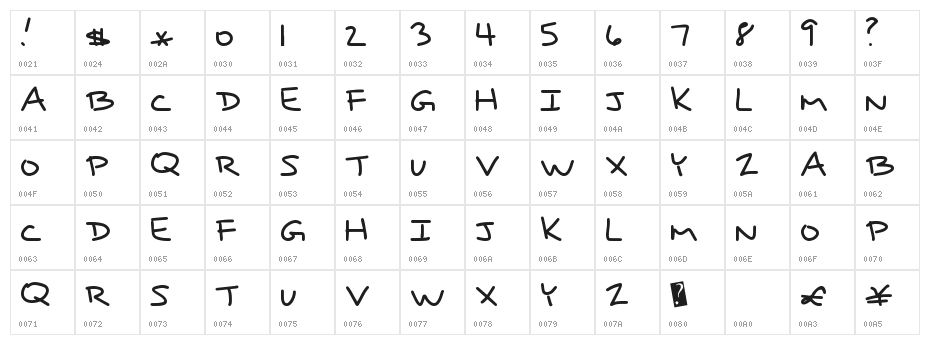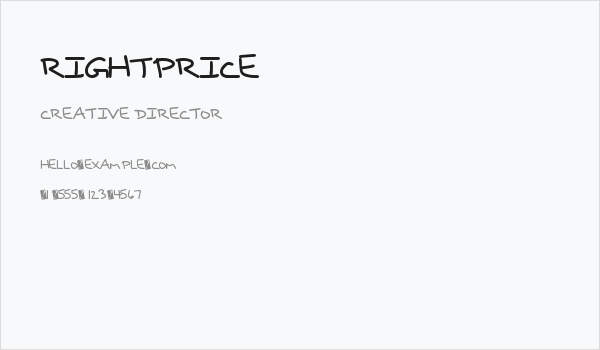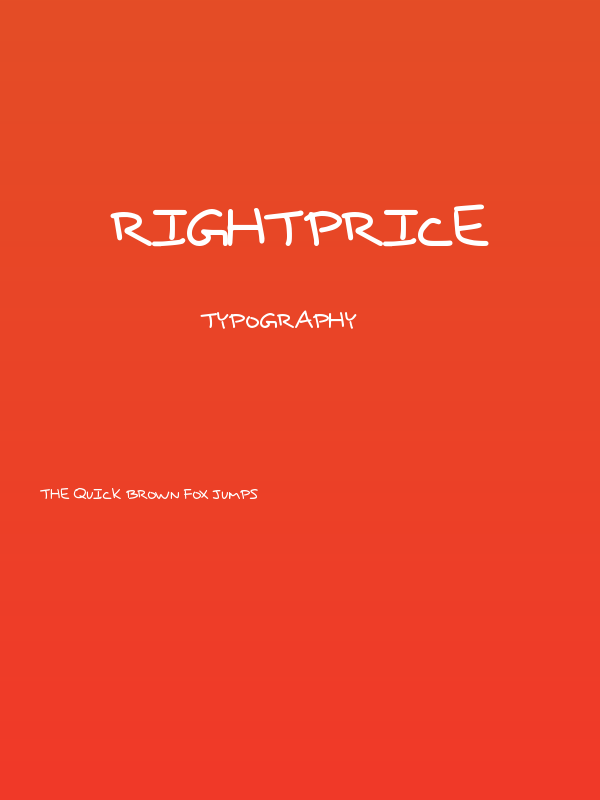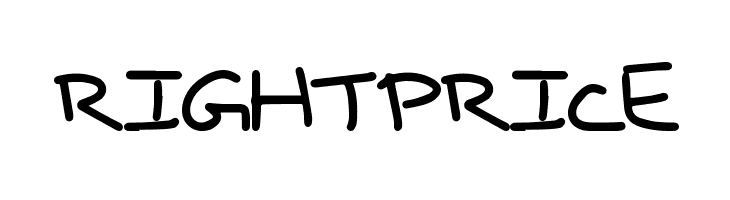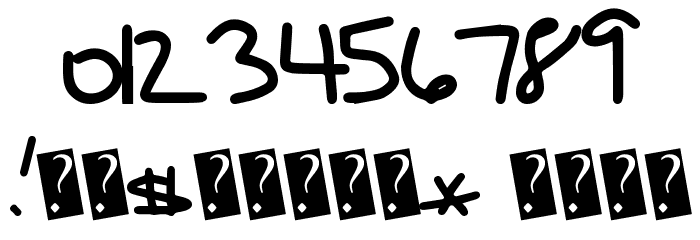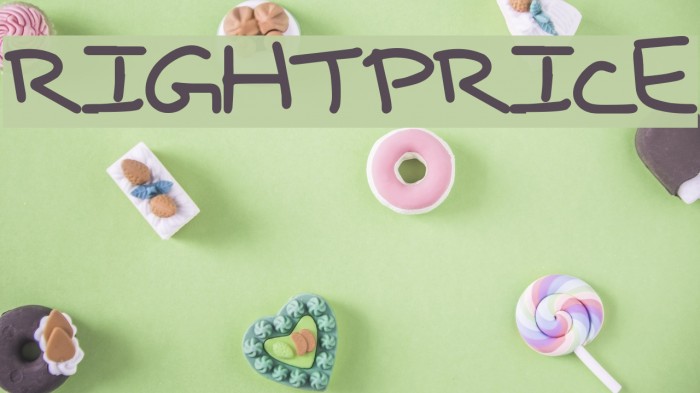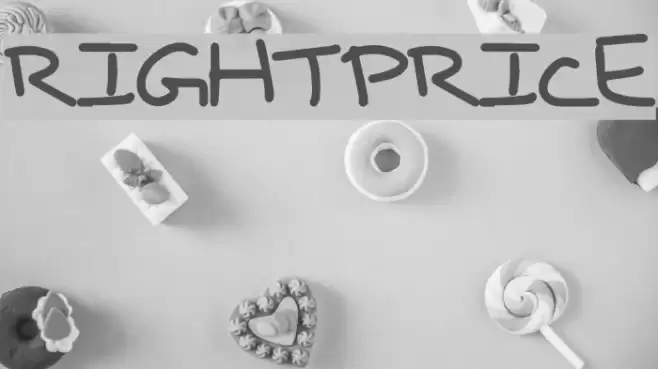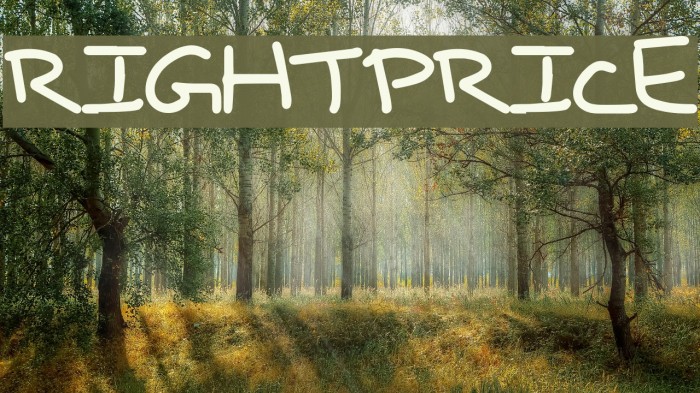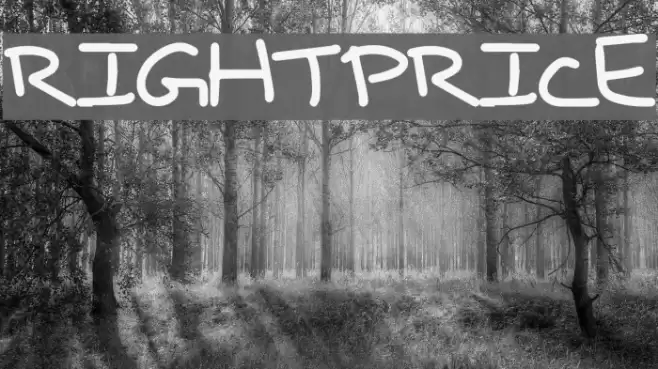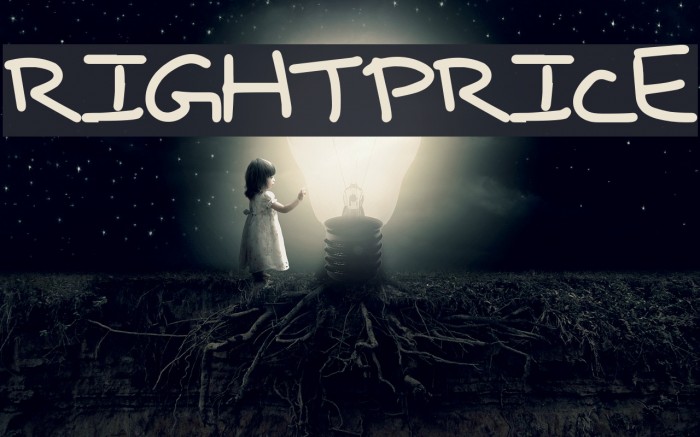
This font features a playful and casual handwritten style, characterized by its irregular strokes and informal appearance. The letters are slightly slanted, giving a dynamic and lively feel. The uppercase and lowercase letters maintain a consistent flow, while the numbers are bold and rounded, enhancing readability. Special characters are creatively styled, adding to the font's whimsical nature. The overall design is approachable and friendly, making it suitable for projects that require a personal touch.
| Use Case | Headlines, Informal text, Personal projects |
| Proposed Projects | Ideal for greeting cards, children's books, personal blogs, and informal branding. |